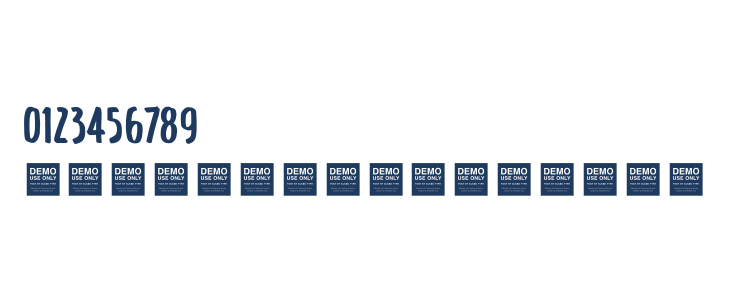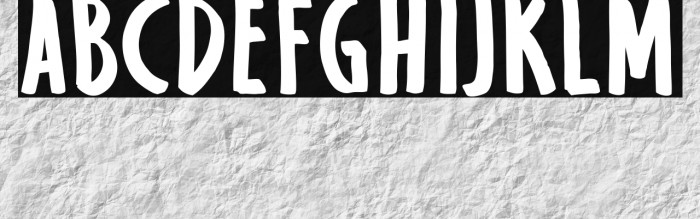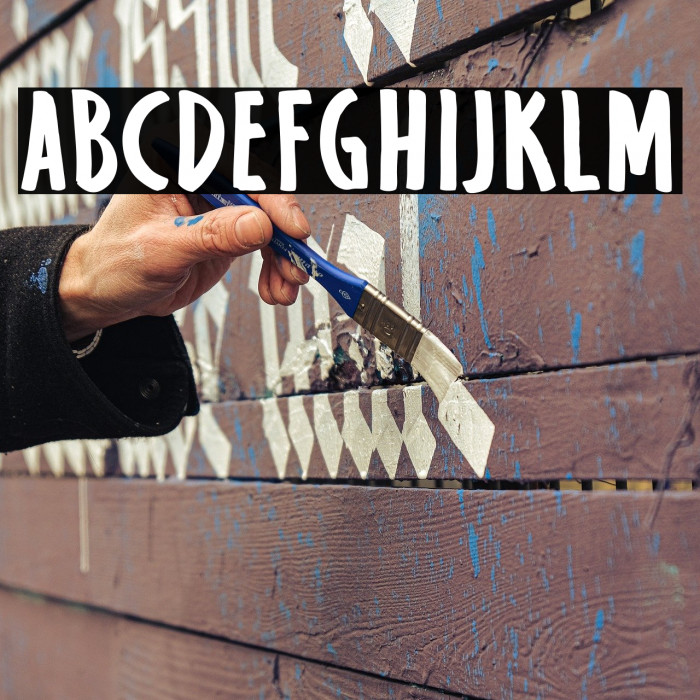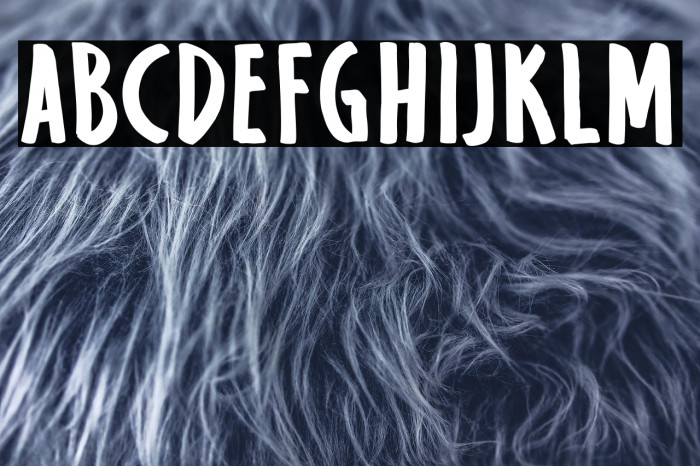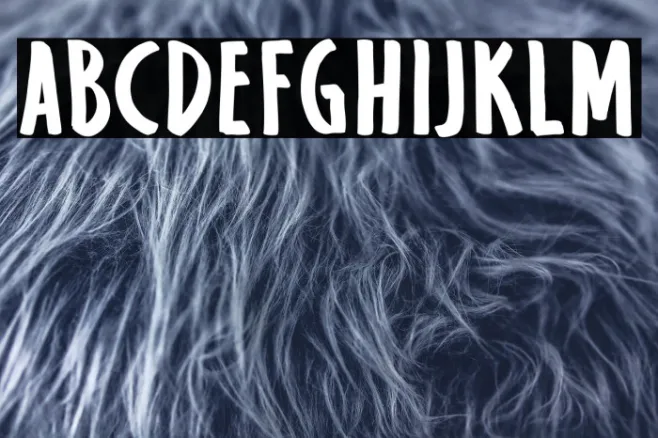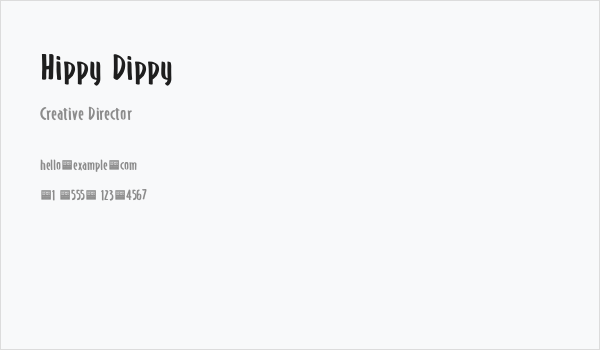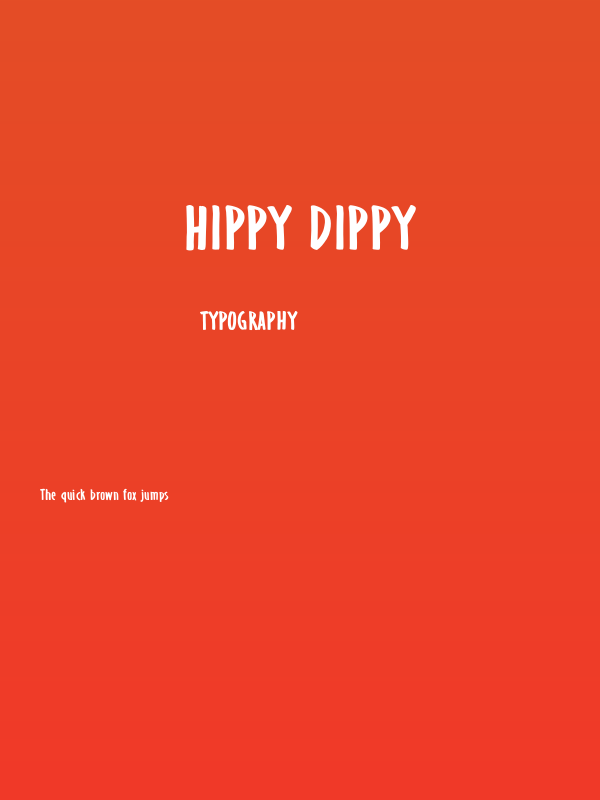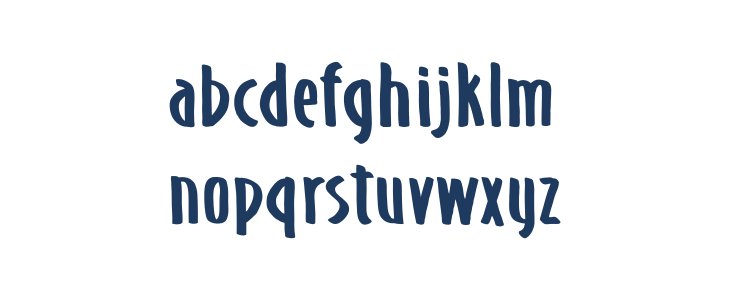
Hippy Dippy Font
Hippy Dippy Description
This font features a playful and bold design with a hand-drawn aesthetic. The letters are slightly irregular, giving it a whimsical and casual feel. The strokes are thick and rounded, contributing to its friendly and approachable appearance. It captures a retro vibe reminiscent of the 1960s and 70s, making it ideal for projects that aim to evoke nostalgia or a carefree spirit. The characters are well-spaced, ensuring readability while maintaining its unique style. This font is perfect for creative projects that require a touch of fun and personality.
| Proposed Projects | Ideal for posters, greeting cards, children's books, and branding that requires a fun and nostalgic touch. |